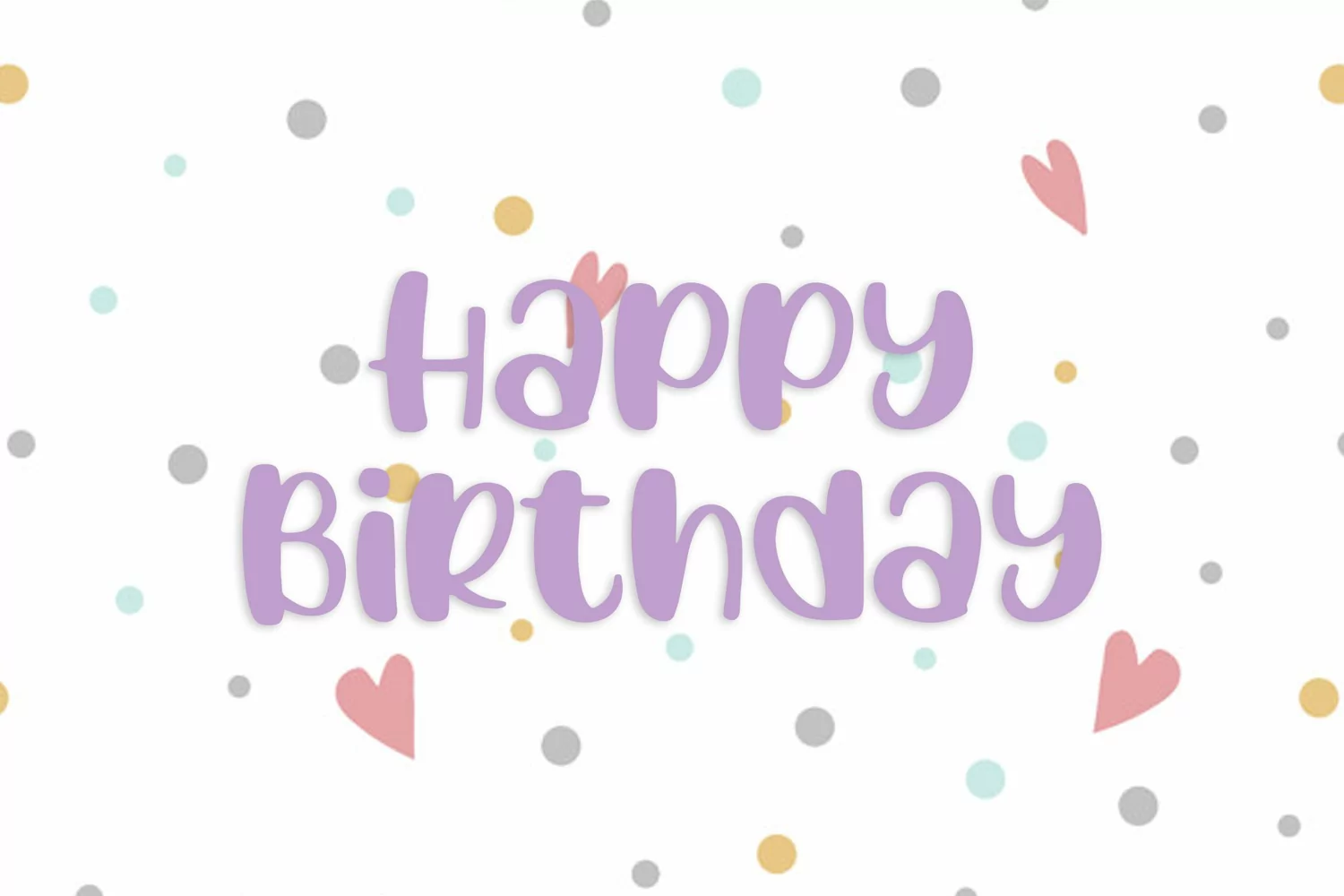
Hey Sunshine is a cute and charming display font. Whether you use it for cartoon-related designs, children's games, or just any creation that requires a lovely touch, this font will be an amazing choice.
HeySunshine
Hey Sunshine